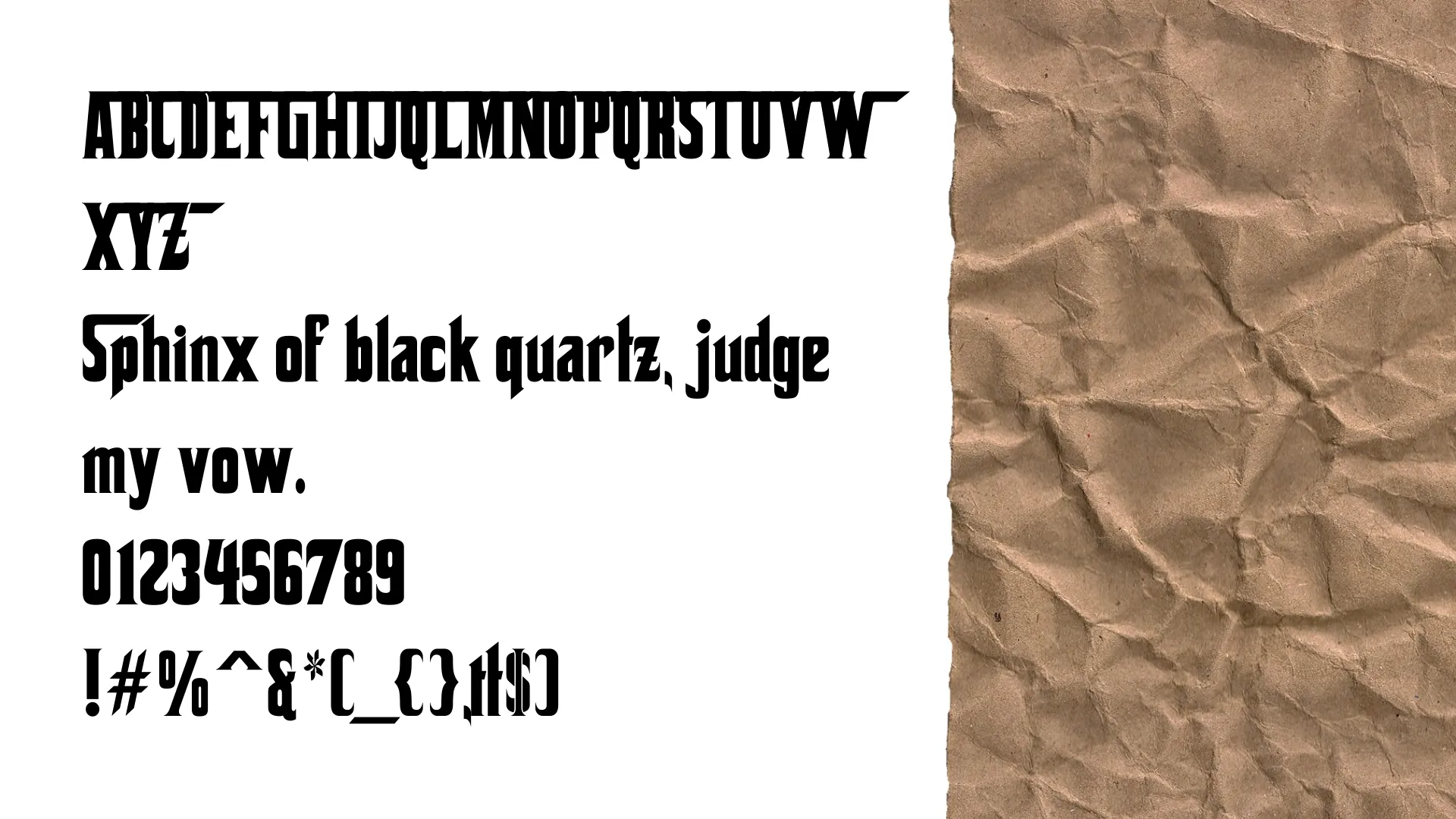
Godfather Font is a movie font that has a defined and bold texture appearance. This font style is perfect to utilize in-display projects and designs. This typeface is inspired by the font that was used in the logo of the movie named God-Father. It is an American film that has gained a lot of popularity since its premiere.
As a result, the font used in the movie’s logo became well-known and sought after by graphic designers and corporations.
The original font that was used in the logo of this movie was Corleone Font. These fonts have the most similar personalities in characters. This font’s character has a creative, imaginative texture that is inappropriate for official documents. With the font, you may make stunning designs.
This typeface has been seen on well-known sites such as CSS, Canva, and Adobe. This font has also been used to make invitation cards, personal cards, homeware designs, website designs, and wallpaper patterns, among other things.
This typeface is also famous for its copy and pastes function. This typeface also has some similar fonts that have similar characters. In our opinion, Tron Font and Terminator Font are most comparable to this typeface. So, you can use this font in replacement for Tron Font and godfather font. It is also comprised of an online text generator.
Designer of Godfather Font
This font is designed on the Corleone Font characters. Corleone font is designed by a well-reputed graphic designer and typeface maker named Michael Hagemann.
He has also created many famous fonts for movies. While creating this font he focused on the readability and creativity of this font.
This font style has been constructed with a family of its own. Each style in this family features capital letters, glyphs, punctuation, numerals, symbols, and special characters, as well as language support. These styles are mentioned below: –
- Corleone Regular
- Corleone Due
What Is the Font Used for The Godfather?
The original font that was used in the logo of this movie was Corleone Font. These fonts have the most similar personalities in characters.
Where Can You Use Godfather Font?
You can use this font style in different creative designs headings, banners, movies, games, posters, and T-Shirt designs. It is best to use to create Logos.
Is Godfather a Web Font?
This typeface can use as headings and displays on websites. So, yes it can also be used for websites.
Which fonts can be used as an alternative to the Godfather font?
Tron Font and Terminator Font are most comparable to this typeface. So, you can use this font in replacement for Tron Font and Terminator Font.